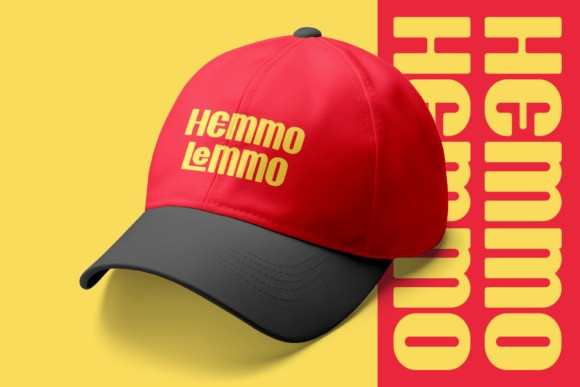
Hemmo Rounded Sans Font
Hemmo Rounded Sans Font is a retro sans serif font by Iwan Alwan, infused with a playful and nostalgic vibe that brings a fun, vintage feel to any design. With rounded, bold letterforms, it is perfect for posters, logos, packaging, and projects that embrace a cheerful, old-school aesthetic. Featuring multilingual support, ligatures, and alternates, Hemmo combines versatility with a lively retro flair, making it ideal for designs that want to stand out with a touch of timeless charm and fun.